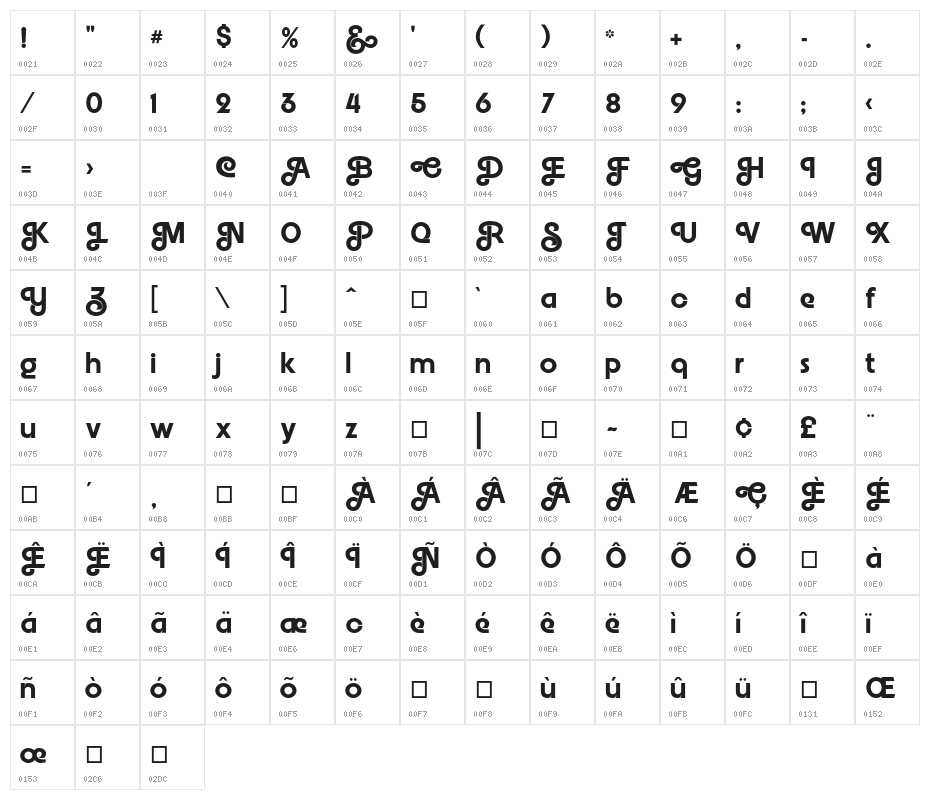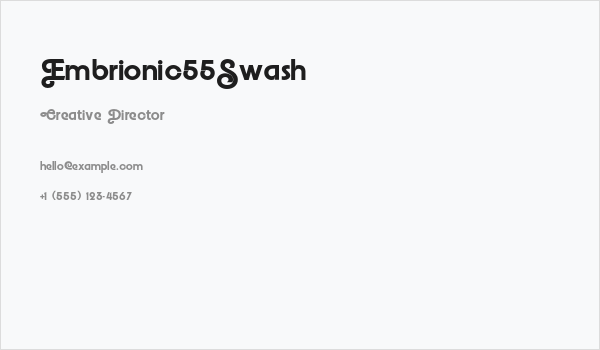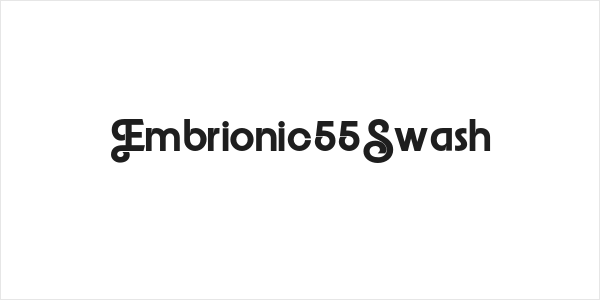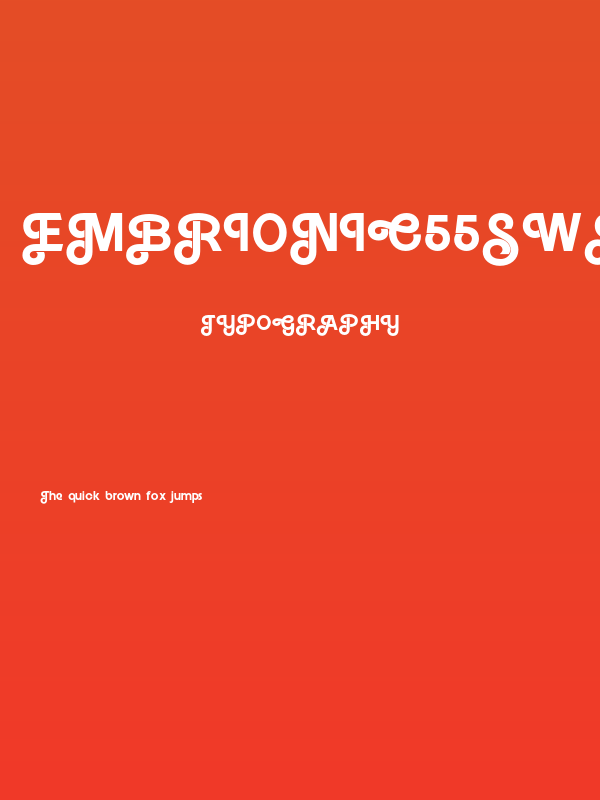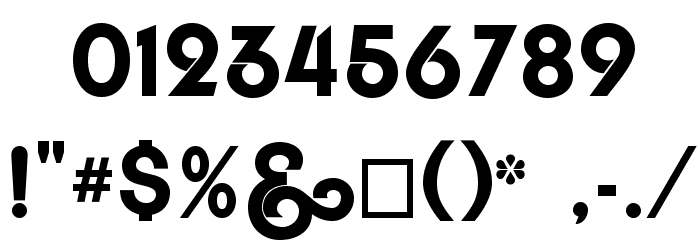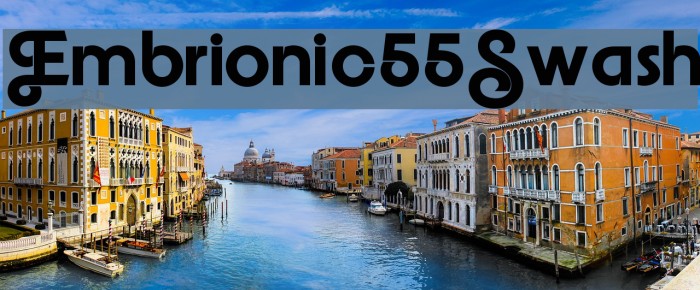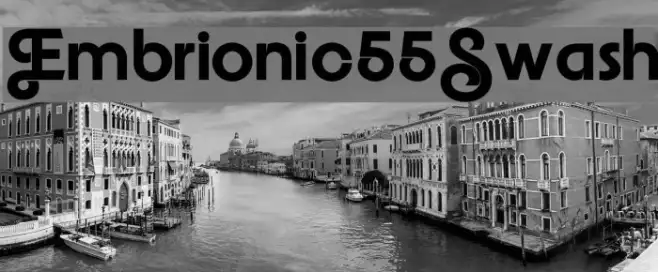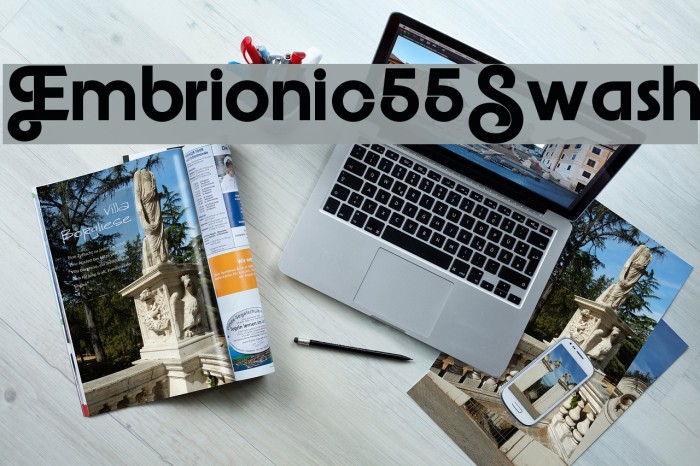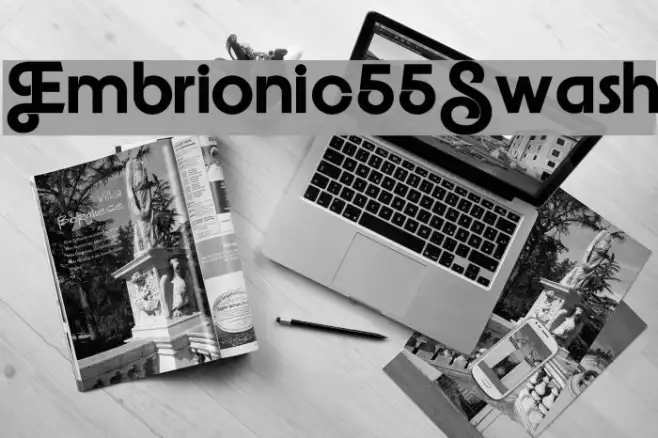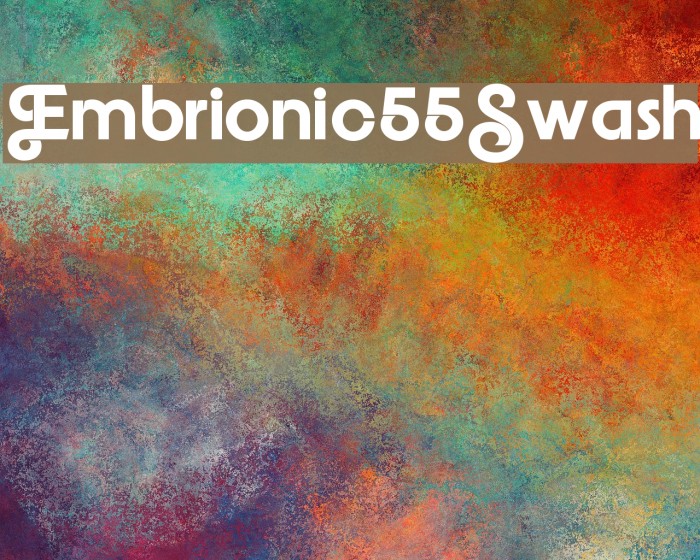
Embrionic55Swash Font
Embrionic55Swash Description
This font features a unique blend of decorative swashes and bold, clean lines. The uppercase letters are adorned with intricate loops and curls, giving them a whimsical and artistic flair. In contrast, the lowercase letters are more straightforward and modern, providing a nice balance. The numerals are bold and easily readable, maintaining the font's overall aesthetic. Special characters are creatively designed, adding to the font's versatility. This font is perfect for projects that require a touch of elegance and creativity.
| Proposed Projects | Ideal for branding, invitations, posters, and artistic projects. |